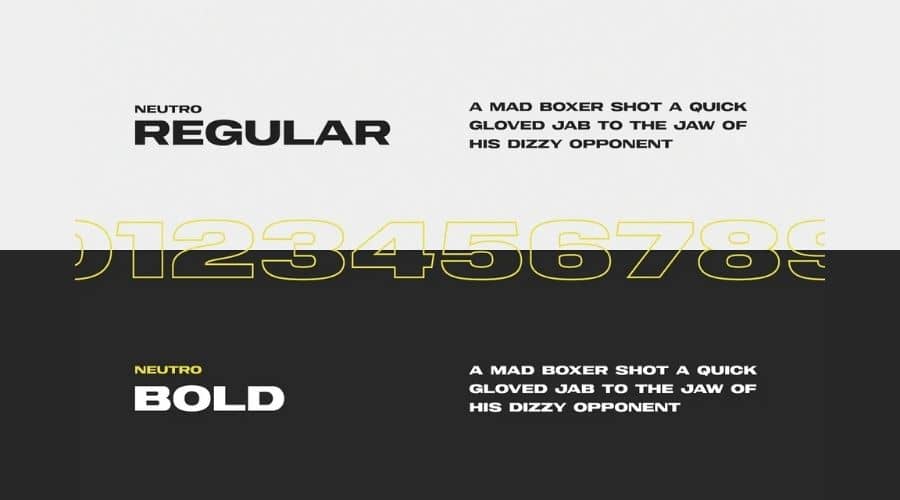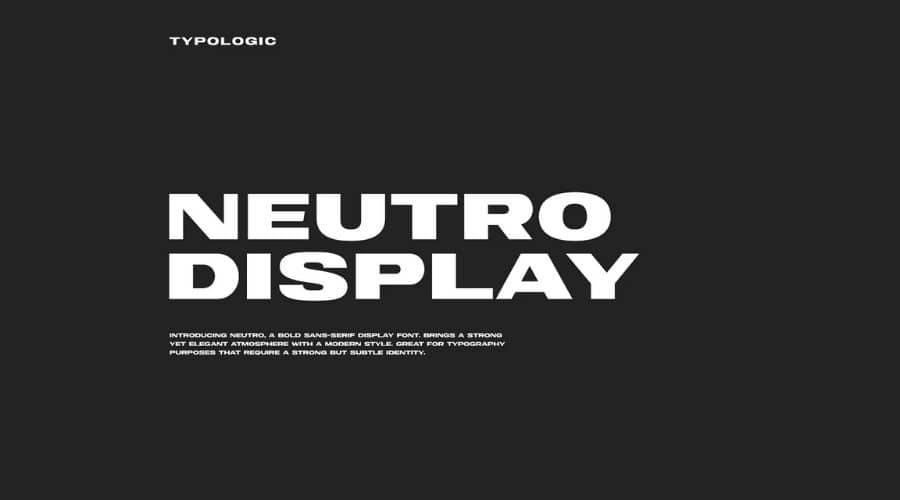
Neutro Font
Font browsing is akin to shopping. If you go with a plan, you’ll locate what you need quickly and easily, but if it’s a spur-of-the-moment decision, you’ll likely spend hours hunting for something that “may do.” So, if you’re looking for a display font for your bold presentations, Neutro is an excellent choice. Typologic produced this all-caps typeface to stand out, a font built for greatness. Although Neutro is bold by nature, it always finds room for a beautiful touch and a modern display that may be utilized for magazine covers, posters, album art, and other typography applications. Neutro is available in three weights: ordinary, bold, and extra-bold, as well as an outlined version with both a personal and business license.
Neutro Sans is a bold sans-serif display typeface with a modern style that creates a strong yet elegant environment. The typeface is available in two different formats: OTF and TTF. The beautiful typeface can easily be converted to a web font. A significant number of designers are now using this fantastic typeface.
Neutro is a show font with bold and chunky lettering. Add it to your most imaginative ideas and see how they come to life! This typeface is fantastic for logos, prints, collages, body text, and more! Any piece will have a very amazing modern-meets-vintage look about it. It can be used for titles, signatures, logotypes, t-shirt designs, letterheads, signage, labels, newsletters, posters, badges, and any other design that requires a distinct, eye-catching typeface. This sans serif font is available in a variety of colors.
| Name | Neutro Font |
| Style | Sans-Serif. |
| Designer | Typologic |